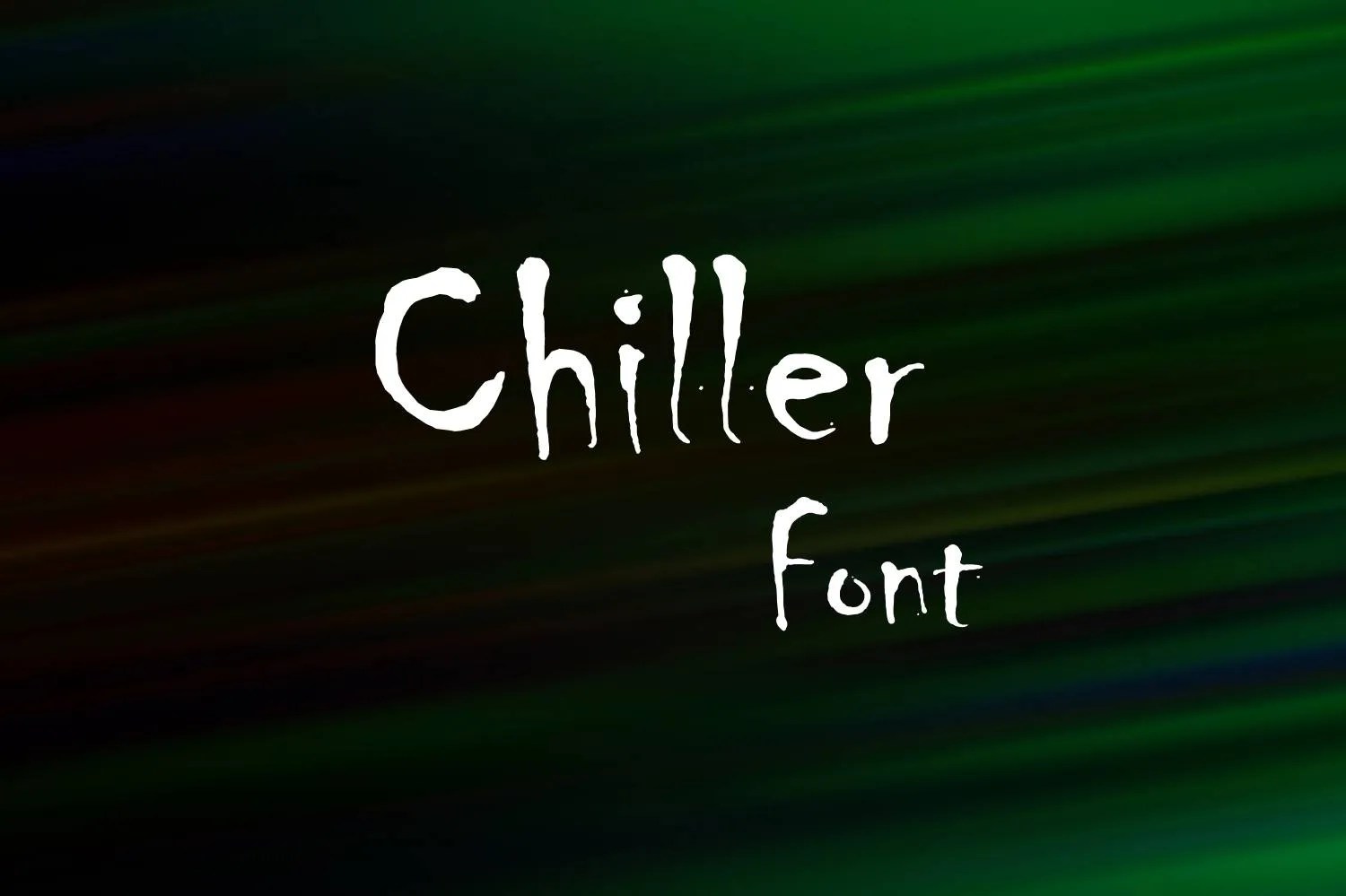
Chiller Font Meaning . It has ink blots and stray strokes that give it a. Although the ink blots and stray strokes might look. Chiller™ is available in opentype, postscript,. Chiller is a dynamic and bold display typeface with a modern style. In 1995, itc released andrew’s work in the. Chiller is an american cable and satellite television channel that is specializing in horror, thriller and suspense programming. Today, we will talk about a chaotic, reckless font, the chiller font. It is the work of a british designer named andrew smith. Chiller is the work of british designer andrew smith, a chaotic, reckless fun font. It is a font that looks like it was written with a brush or a marker. If you want to add a cool and spooky vibe to your design, look no further than chiller font.
It has ink blots and stray strokes that give it a. Chiller™ is available in opentype, postscript,. It is a font that looks like it was written with a brush or a marker. Chiller is a dynamic and bold display typeface with a modern style. Chiller is the work of british designer andrew smith, a chaotic, reckless fun font. If you want to add a cool and spooky vibe to your design, look no further than chiller font. Although the ink blots and stray strokes might look. Today, we will talk about a chaotic, reckless font, the chiller font. In 1995, itc released andrew’s work in the. It is the work of a british designer named andrew smith.
Chiller Font Meaning If you want to add a cool and spooky vibe to your design, look no further than chiller font. It has ink blots and stray strokes that give it a. It is a font that looks like it was written with a brush or a marker. Chiller is a dynamic and bold display typeface with a modern style. In 1995, itc released andrew’s work in the. If you want to add a cool and spooky vibe to your design, look no further than chiller font. Chiller is the work of british designer andrew smith, a chaotic, reckless fun font. Chiller™ is available in opentype, postscript,. Chiller is an american cable and satellite television channel that is specializing in horror, thriller and suspense programming. Although the ink blots and stray strokes might look. Today, we will talk about a chaotic, reckless font, the chiller font. It is the work of a british designer named andrew smith.
Chiller Font Free Download Chiller Font Meaning In 1995, itc released andrew’s work in the. Chiller is an american cable and satellite television channel that is specializing in horror, thriller and suspense programming. It has ink blots and stray strokes that give it a. It is the work of a british designer named andrew smith. Today, we will talk about a chaotic, reckless font, the chiller font.. Chiller Font Meaning.
Chiller Font » Fonts Max Chiller Font Meaning It has ink blots and stray strokes that give it a. Chiller is the work of british designer andrew smith, a chaotic, reckless fun font. Although the ink blots and stray strokes might look. Today, we will talk about a chaotic, reckless font, the chiller font. It is a font that looks like it was written with a brush or. Chiller Font Meaning.
Chiller font Chiller Font Meaning It is the work of a british designer named andrew smith. It has ink blots and stray strokes that give it a. Although the ink blots and stray strokes might look. In 1995, itc released andrew’s work in the. Today, we will talk about a chaotic, reckless font, the chiller font. It is a font that looks like it was. Chiller Font Meaning.
Chiller Font Free Download Chiller Font Meaning It has ink blots and stray strokes that give it a. Although the ink blots and stray strokes might look. In 1995, itc released andrew’s work in the. Chiller is a dynamic and bold display typeface with a modern style. If you want to add a cool and spooky vibe to your design, look no further than chiller font. Chiller. Chiller Font Meaning.
Chillerz Font Chiller Font Meaning Chiller is the work of british designer andrew smith, a chaotic, reckless fun font. In 1995, itc released andrew’s work in the. It is the work of a british designer named andrew smith. Today, we will talk about a chaotic, reckless font, the chiller font. Chiller is a dynamic and bold display typeface with a modern style. It is a. Chiller Font Meaning.
Chiller Font Svg Png Ai Eps Dxf Alphabet Numbers Etsy in 2022 Chiller Font Meaning In 1995, itc released andrew’s work in the. It is the work of a british designer named andrew smith. Today, we will talk about a chaotic, reckless font, the chiller font. It has ink blots and stray strokes that give it a. Although the ink blots and stray strokes might look. Chiller is the work of british designer andrew smith,. Chiller Font Meaning.
Chillerz DEMO font Chiller Font Meaning In 1995, itc released andrew’s work in the. Chiller™ is available in opentype, postscript,. It has ink blots and stray strokes that give it a. It is the work of a british designer named andrew smith. Chiller is the work of british designer andrew smith, a chaotic, reckless fun font. Chiller is a dynamic and bold display typeface with a. Chiller Font Meaning.
Chiller LET Plain1.0 free Font What Font Is Chiller Font Meaning Chiller is the work of british designer andrew smith, a chaotic, reckless fun font. It is the work of a british designer named andrew smith. It is a font that looks like it was written with a brush or a marker. Chiller is a dynamic and bold display typeface with a modern style. Although the ink blots and stray strokes. Chiller Font Meaning.
Chiller Font Download Free Font Chiller Font Meaning In 1995, itc released andrew’s work in the. It has ink blots and stray strokes that give it a. Although the ink blots and stray strokes might look. Chiller is the work of british designer andrew smith, a chaotic, reckless fun font. Chiller is an american cable and satellite television channel that is specializing in horror, thriller and suspense programming.. Chiller Font Meaning.
Chiller шрифт Chiller Font Meaning If you want to add a cool and spooky vibe to your design, look no further than chiller font. Today, we will talk about a chaotic, reckless font, the chiller font. Chiller™ is available in opentype, postscript,. Chiller is an american cable and satellite television channel that is specializing in horror, thriller and suspense programming. It has ink blots and. Chiller Font Meaning.